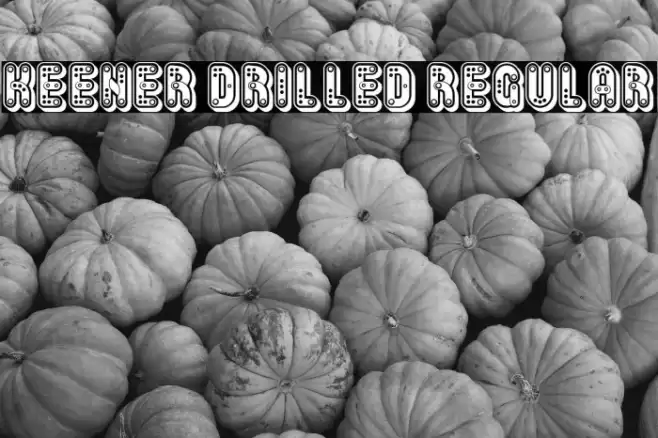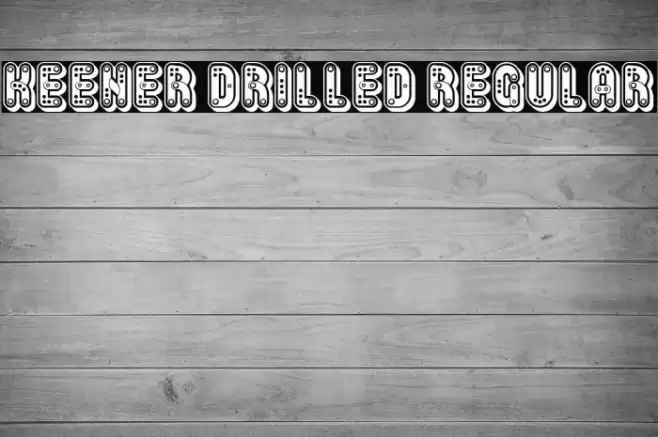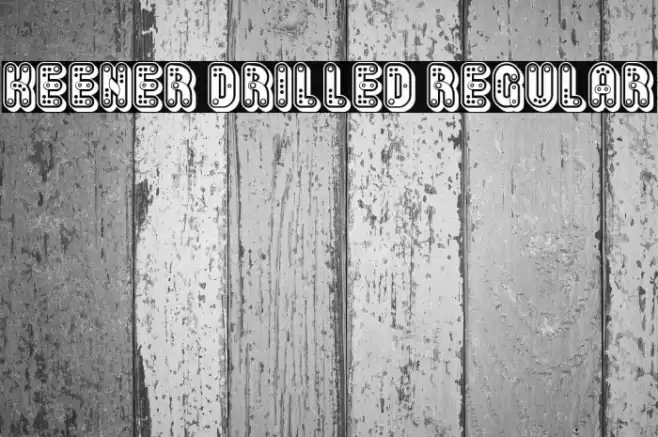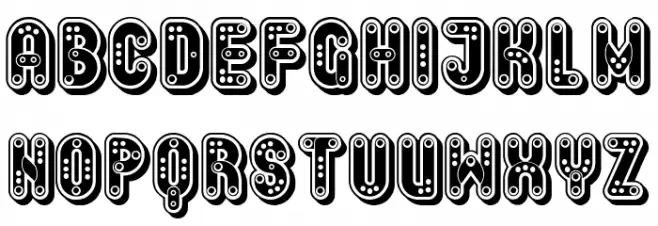
Keener Drilled Regular Font
Keener Drilled Regular Description
This font features a bold, decorative style with a unique drilled pattern within each character. The letters are outlined with a thick black border, giving them a three-dimensional appearance. The interior of each letter is filled with a series of evenly spaced dots, creating a playful and eye-catching effect. The font maintains a consistent weight and width across all characters, ensuring uniformity and balance. Its bold and whimsical design makes it ideal for projects that require a standout visual element.
A bold, decorative font with a unique drilled pattern and thick outlines from Decorative fonts.
- Proposed Projects: Ideal for posters, signage, event invitations, and branding materials that require a bold and playful aesthetic.